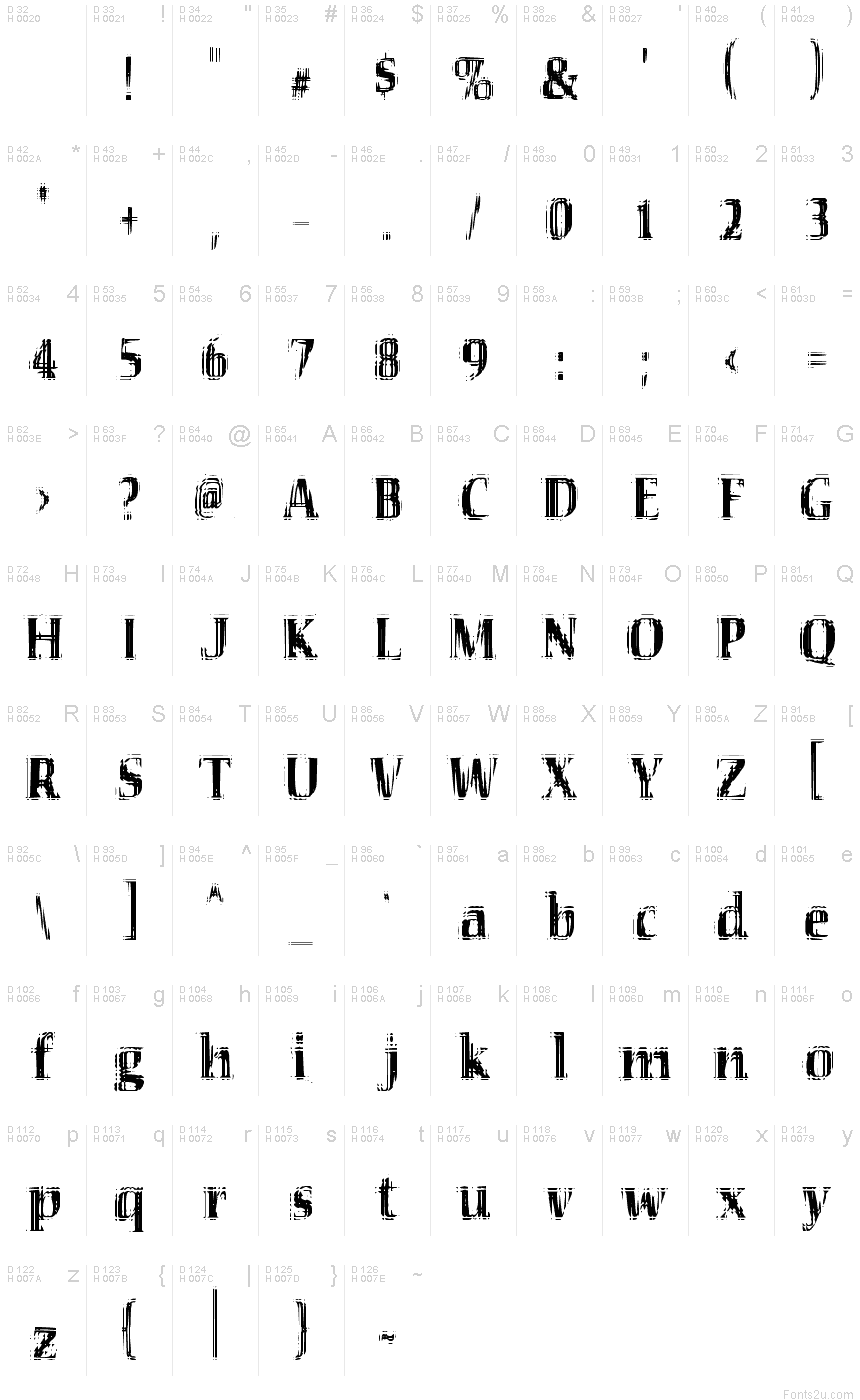
VTC Seeing Double Doing Triple by Larry E. Yerkes is a free distressed serif display font with fractured, ink-worn forms. Its tall letters mix severe thick-thin contrast with chipped edges, scratches, and broken patches. The damage feels printed, not digitally tidy.
Poster design is its clearest medium, especially for horror films, abrasive music events, and experimental theater. On album packaging and merchandise, the scarred surfaces can echo photocopied artwork, torn paper, or distressed photography. Even among those uses, theatrical event posters are the strongest fit because the sharp serifs and missing fragments turn a title into part of the damaged image.